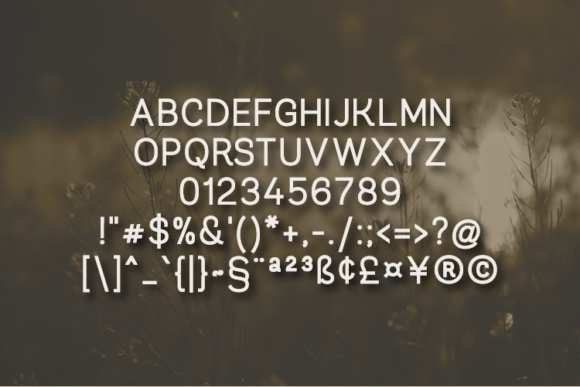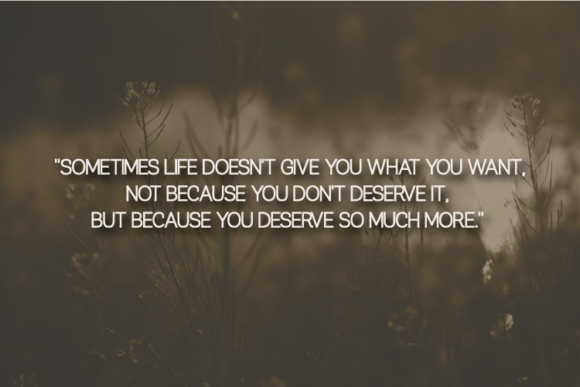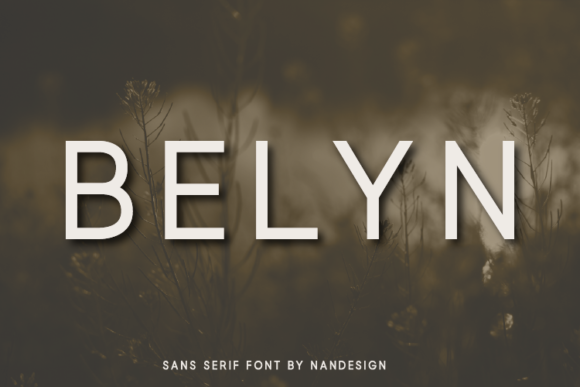
Introducing Belyn Font: The Epitome of Modern Sans Serif Elegance
In the realm of typography, fonts play a pivotal role in shaping the visual identity of a design project. Among the myriad of fonts available, Belyn Font stands out as a beacon of modernity and sophistication. This fancy, contemporary sans serif font has been meticulously crafted to deliver a well-balanced aesthetic appeal, coupled with a modern look that is further accentuated by its remarkable characters.
The Design Philosophy Behind Belyn Font
Belyn Font embodies a design philosophy that prioritizes clarity, legibility, and style. Its sans serif design lends it a clean and minimalist appearance, making it an ideal choice for designers and crafters seeking to infuse their projects with a touch of elegance and contemporary flair. The font’s well-balanced weight distribution ensures that it remains readable across various mediums, from digital screens to print materials.
Key Features of Belyn Font
- Contemporary Sans Serif Design: Belyn Font boasts a sleek and modern sans serif design that instantly elevates the visual appeal of any project.
- Well-Balanced Weight Distribution: The font’s carefully calibrated weight distribution ensures optimal readability and aesthetic balance.
- Amazing Characters: What sets Belyn Font apart is its collection of amazing characters that add a creative twist to the standard alphabet, enabling designers to inject personality into their work.
Applications of Belyn Font
The versatility of Belyn Font makes it suitable for a wide range of applications. Whether you’re working on a branding project, crafting a compelling website, or designing marketing materials, Belyn Font can be the perfect typographic companion. Its modern look and feel resonate well with audiences across various industries, from tech and fashion to lifestyle and education.
Why Choose Belyn Font for Your Design Projects?
Choosing Belyn Font for your design projects comes with several advantages:
- Enhanced Visual Appeal: With its contemporary design and elegant appearance, Belyn Font can significantly enhance the visual appeal of your projects.
- Improved Readability: The font’s focus on legibility ensures that your message is conveyed clearly and effectively.
- Creative Flexibility: The inclusion of unique characters provides designers with the flexibility to experiment and create distinctive designs.
Tips for Maximizing the Potential of Belyn Font
To get the most out of Belyn Font, consider the following tips:
- Pair it with Complementary Fonts: Experiment with font pairings to create visual hierarchy and add depth to your designs.
- Utilize Character Variations: Make the most of Belyn Font’s amazing characters to add personality and uniqueness to your typography.
- Adjust Font Sizes and Weights: Play with different font sizes and weights to create emphasis and guide the reader’s eye through your content.
Belyn Font is more than just a typeface; it’s a design statement that speaks of modernity, elegance, and creativity. With its well-balanced weight distribution, contemporary sans serif design, and amazing characters, Belyn Font offers designers and crafters a powerful tool to elevate their projects. Whether you’re aiming to create a stunning website, a captivating marketing campaign, or a compelling brand identity, Belyn Font is poised to be an invaluable asset in your design arsenal.